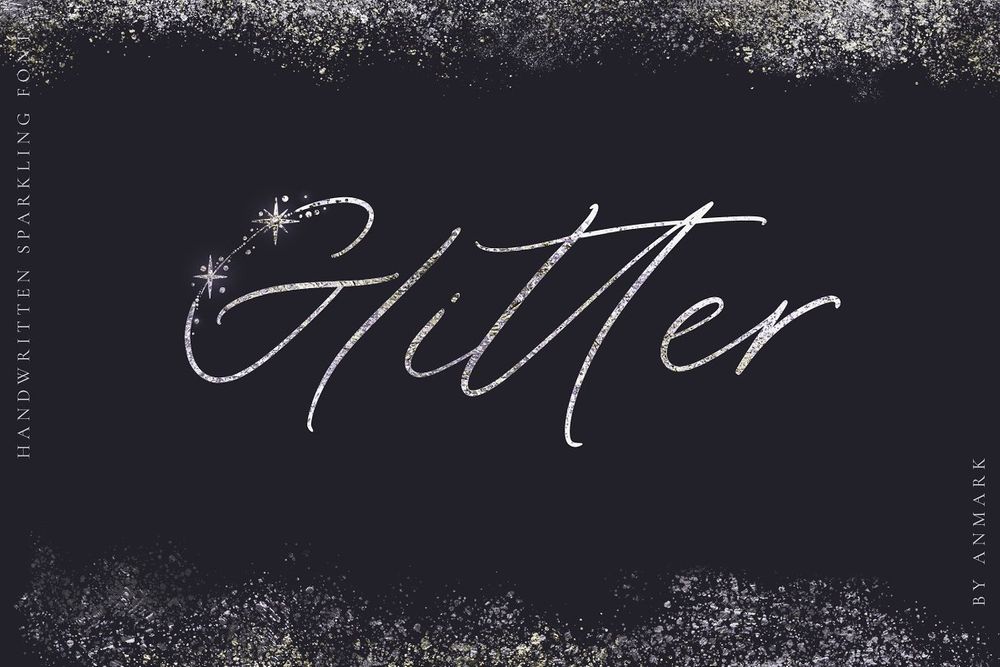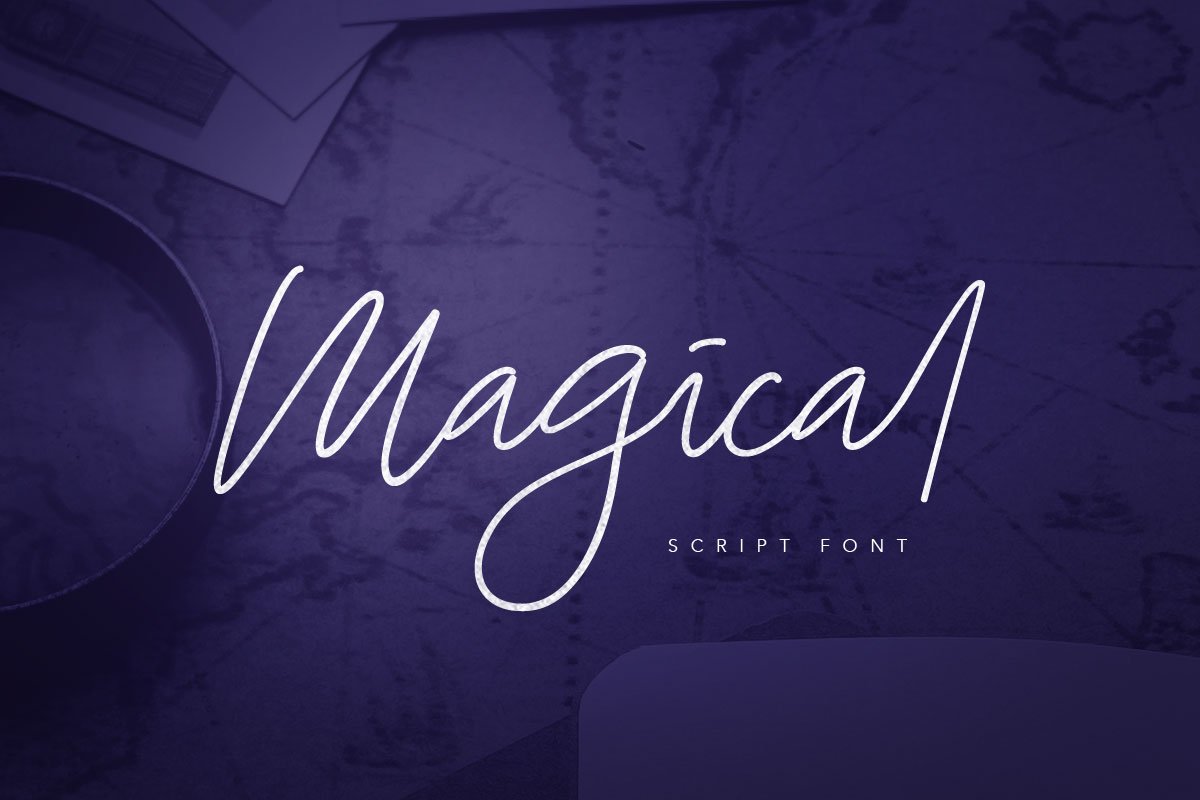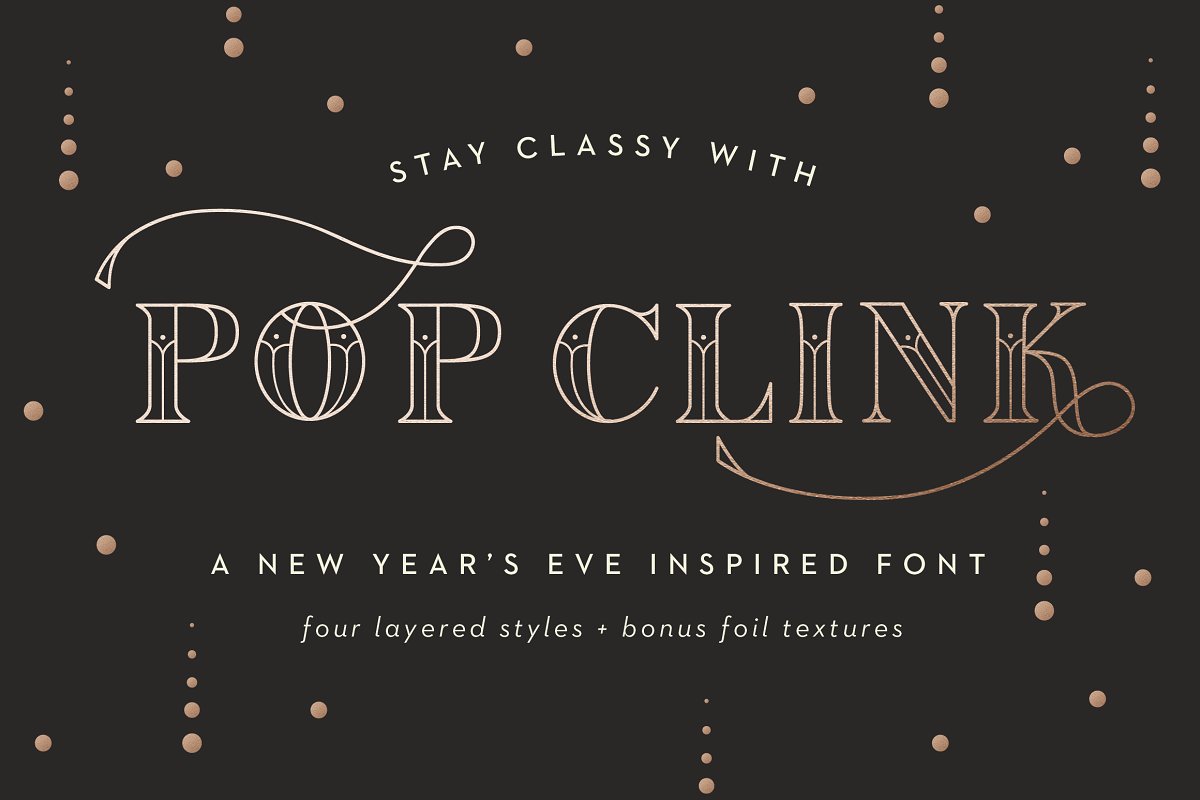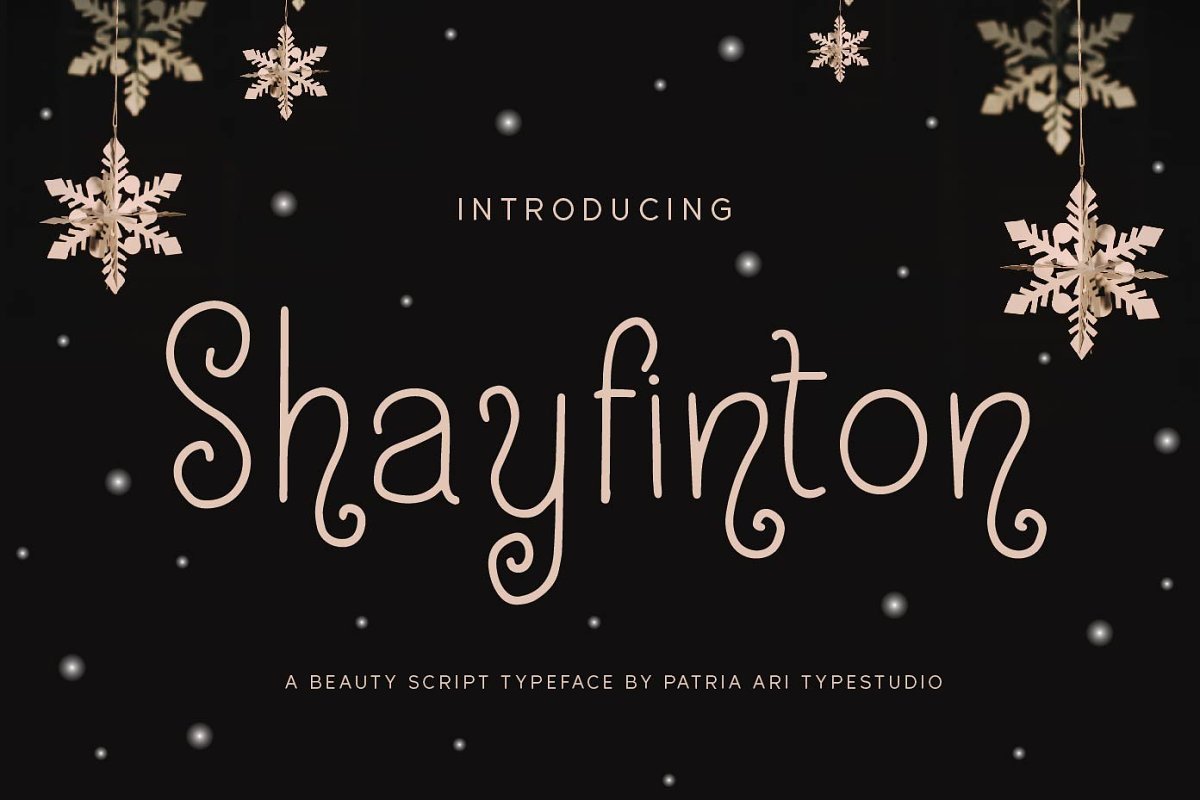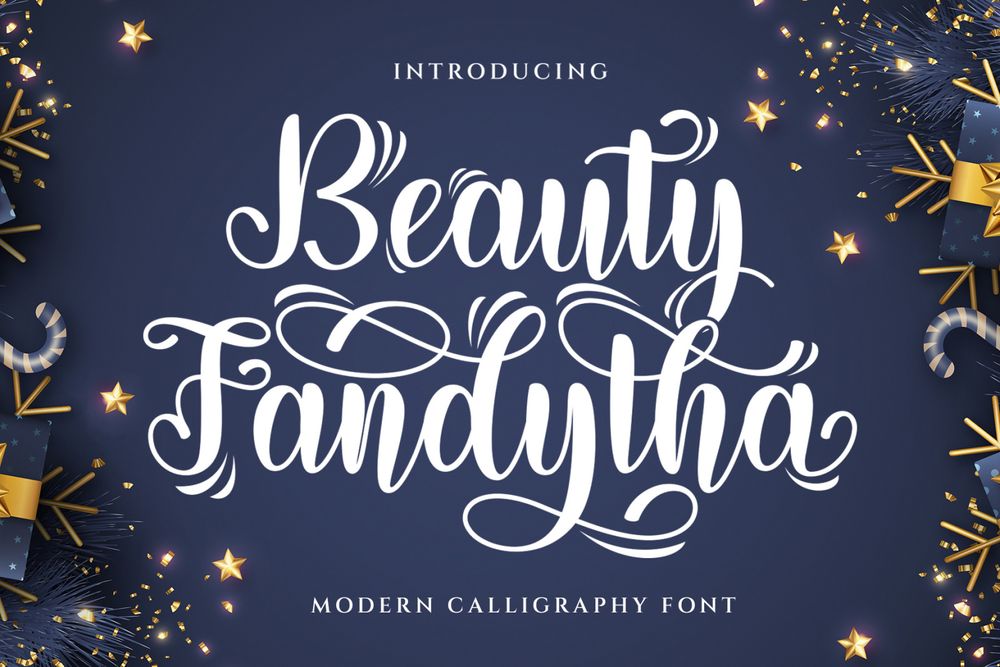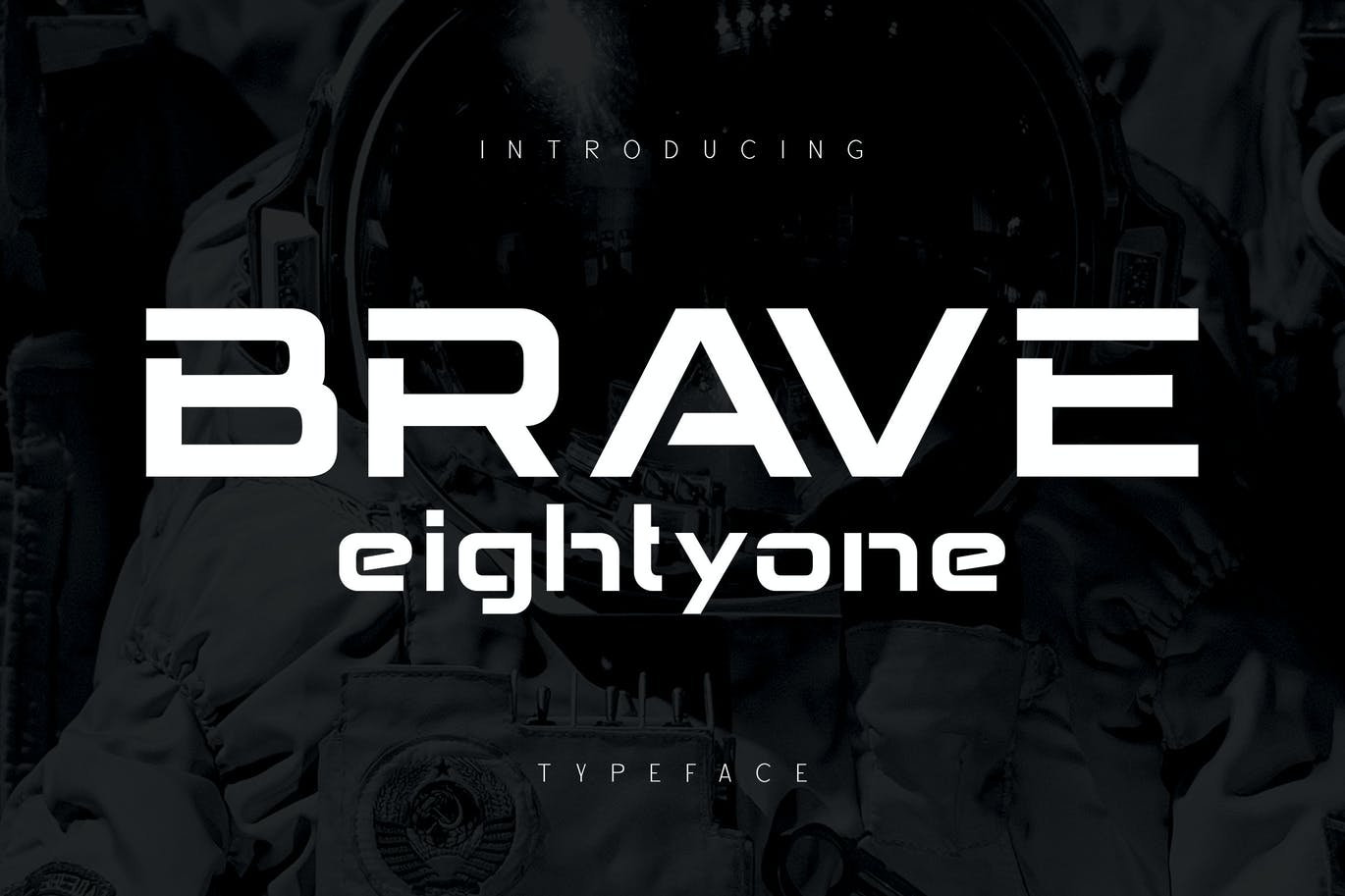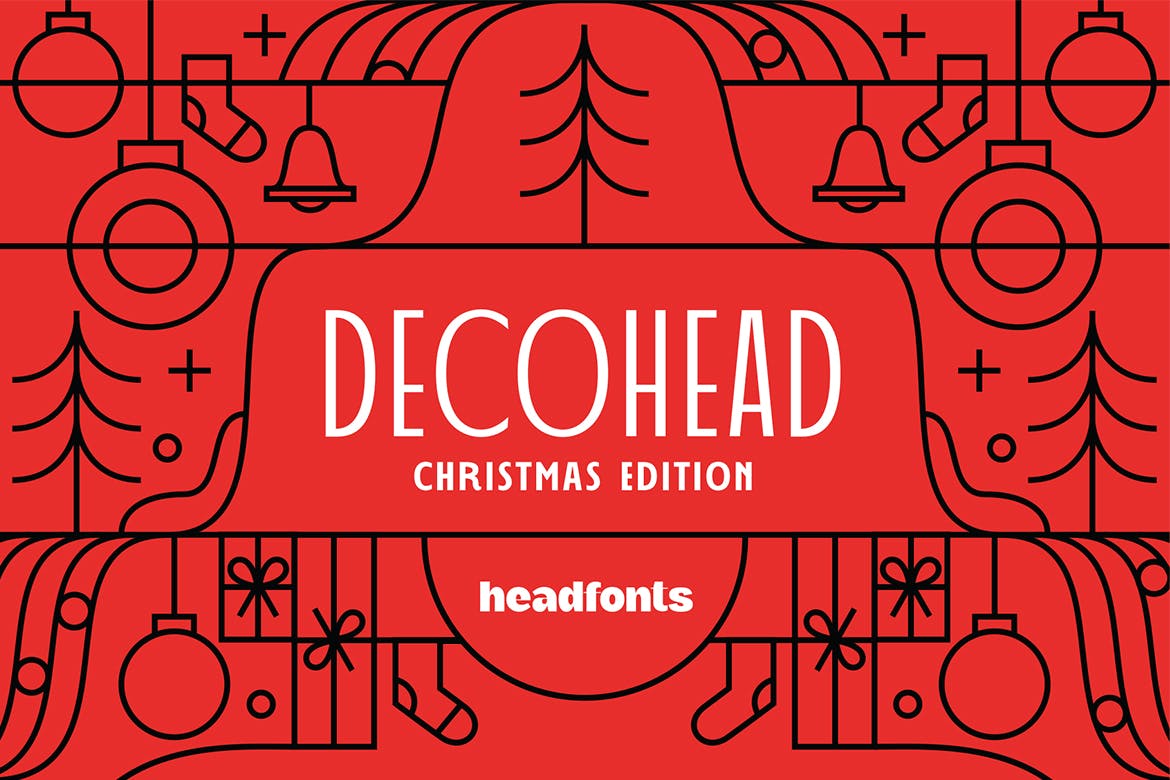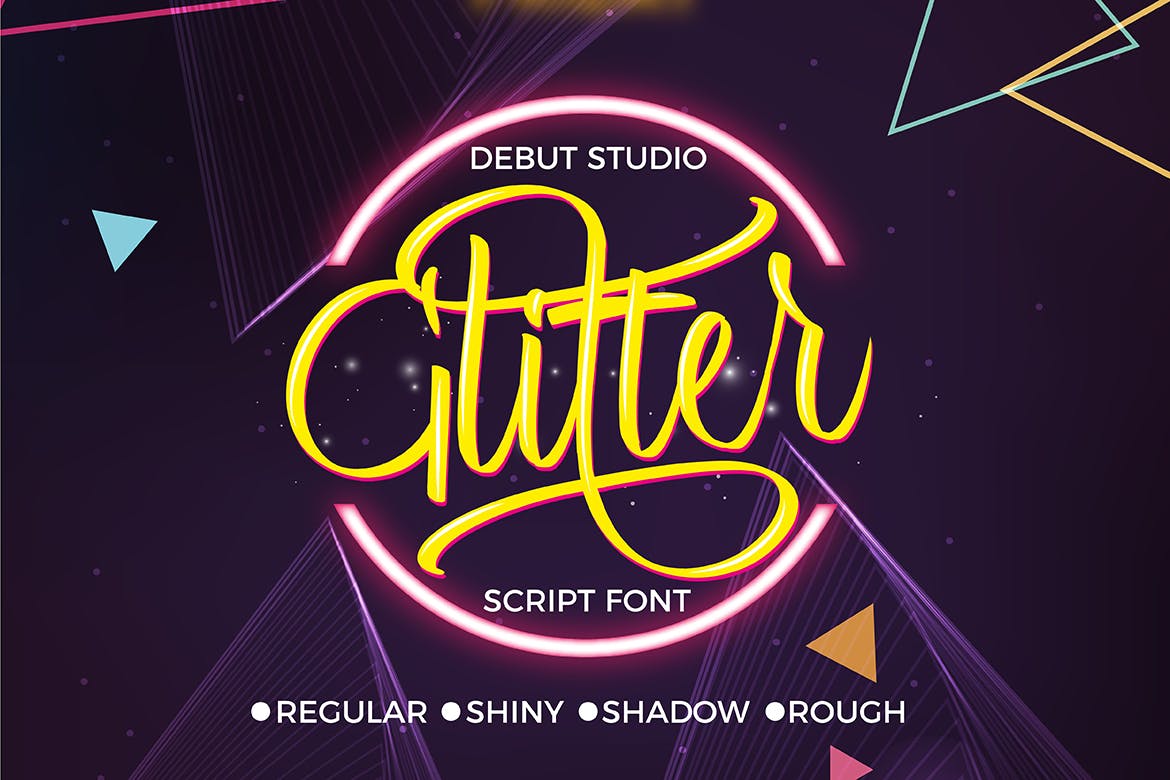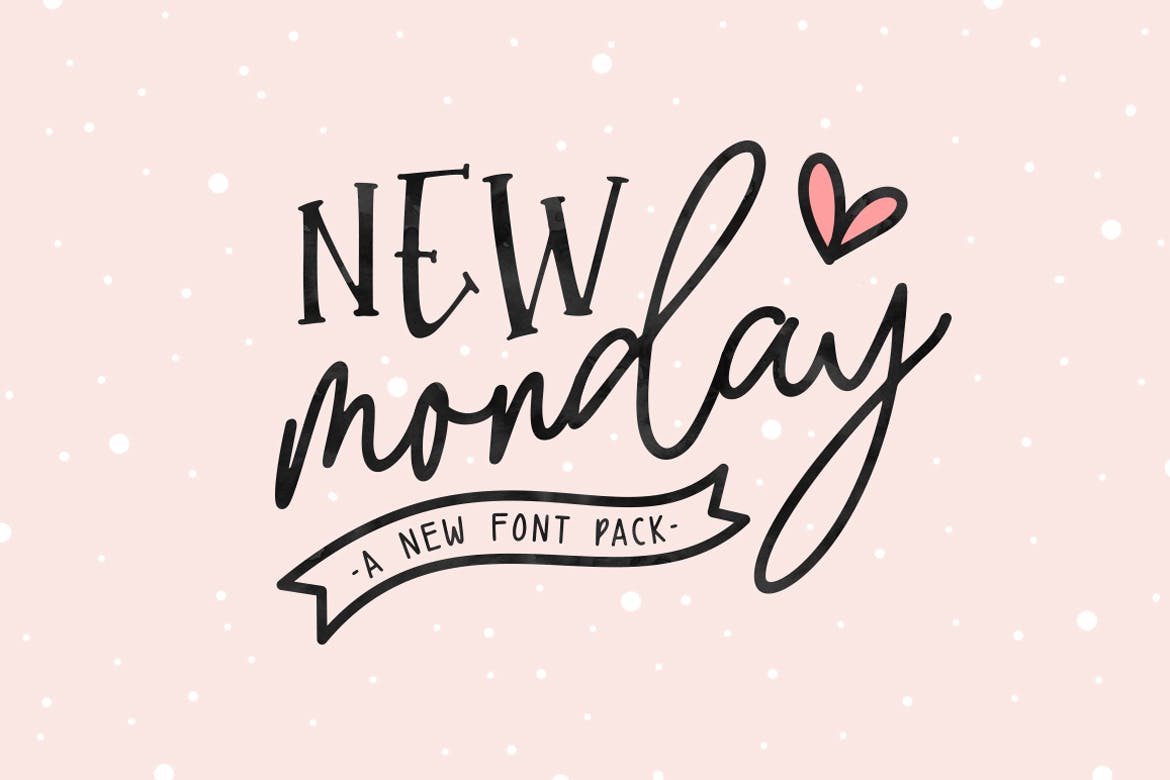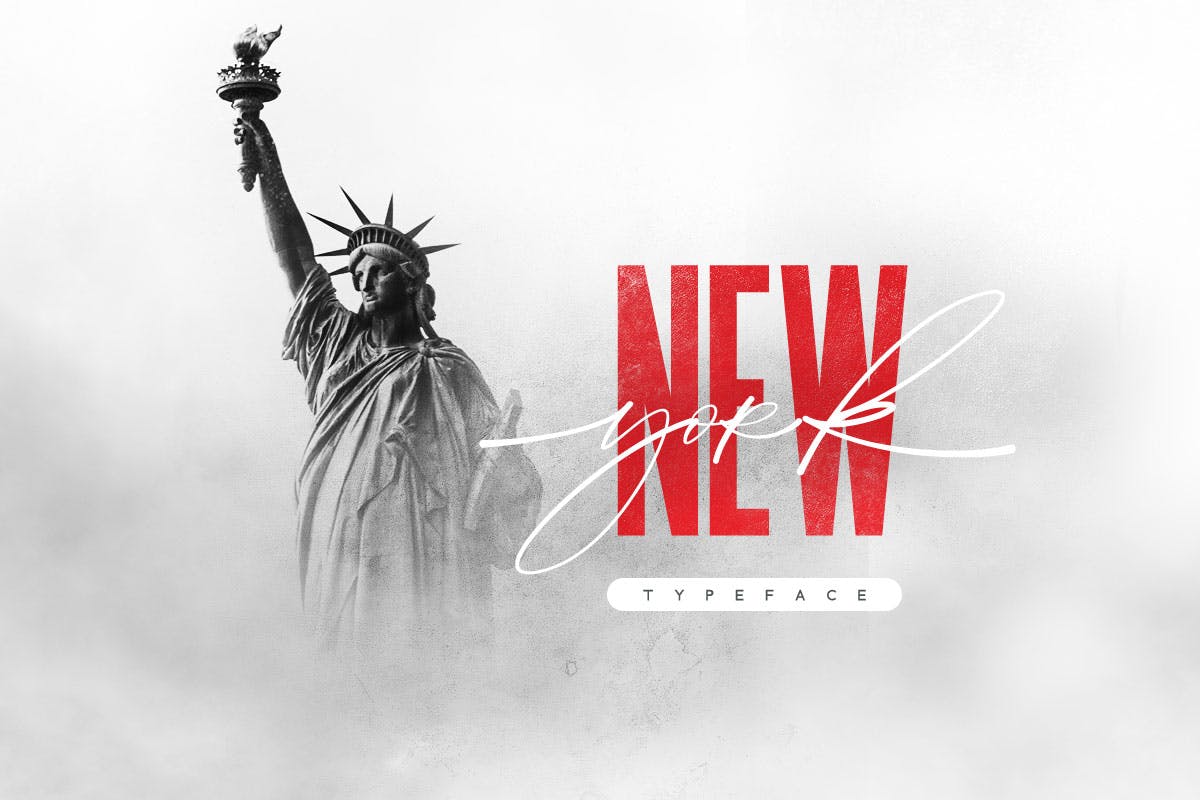
30+ Glowing New Year Fonts to Create a Festive Mood
The celebrations is a part of our life. We waiting the time when we can to celebrate until dawn with our best friends.
Christmas is passed and the next huge event to meet a New Year. So, for this big ritual time we have collected in this awesome post a New Year fonts, and they can help to create a festive mood for your designs.
Happy New Year! Wishing you all a happy and prosperous time spent with your family and friends. Enjoy every font and feel the magic, then your design will be done without any doubts.
Free You’re Invited Font
A nice and stylish old timer font by Mario Arturo foryour special event. You can use it for gift cards, flyers or invitations.
A spectacular festive font for celebration designs. Perfect for gift cards, flyers, postcards, headings, logos or invitations.
Amazing script font for designs that needs attention. Perfect for gift cards, flyers, postcards, headings, logos or invitations.
A perfect font for party related designs. Great for gift cards, flyers, postcards, headings, logos or invitations. Free for personal use.
This great font is perfect for your design to add a festive feeling. Perfect for invitations, gift cards, logos a special for Christmas and New Year events.
An elegant Christmas font, but it is perfect for all celebration designs. Great for posters, headers, feminine logos to wedding invitations but it can also be used for small articles and occasional texts.
It is a handwritten font for nice festive designs. New Monday perfect for logos, printed quotes, invitations, cards, product packaging and another project design.
This font is inspired from handwriting itself, it is suitable for design-themed purposes such as festivals, graduation, weddings, new year and others.
Every single letters have been carefully crafted to make your text look natural hand writing. With modern script style it will be perfect for many different projects like photography, watermark, quotes, blog header, poster, wedding, branding, logo, fashion, apparel, letter, invitation, stationery and etc.
It is inspired by futuristic design concepts and space-like design concepts. This font is good for future, modern, space, sports, bold and speed themed designs.
It is layered family that shines in foil and is perfect ringing in the New Year. Pop Clink is suitable for holiday cards, wedding invitations, branding, stationery, blog design and etc.
A new display vintage font with tons of cool characters, symbols, and OpenType features. Aprille Typeface is perfect for quotes, logos, apparel, advertising, wedding invitations, packaging design, party design and etc.
A new display vintage font with tons of cool characters, symbols, and OpenType features. Blackout Typeface is perfect for quotes, logos, apparel, advertising, wedding invitations, packaging design, party design and etc.
A hand-painted typeface designed to help you create that look of truly hand-drawn and also shiny touch to any of your typographic projects. Easily apply foil layer styles to font, vector elements, wedding invitations, prints, blog banners, greeting cards, patterns, brushes and etc.
Info / Download SourceBiolatesha Calligraphy Font
It is a wonderful hand-brushed and monoline calligraphy script font. Perfect for any design needs, modern invitation design, branding, stationery design, blog design, modern advertising design, invitation and etc.
Info / Download SourceLightsaber Font + Neon Animation
Lightsaber bears a new approach on handlettering style with equally slanted monolines. It is perfect for any festive design project, invitations, gift cards, new year design and etc.
Info / Download SourceGlitter Festive Font
It is an elegant, decorative, handwritten font. Suitable for wedding invitation, branding, packaging, magazines, makeup business, social media, quotes, restaurant menu, greeting cards, flyers and etc.
Info / Download SourceBright Moments Font
A new handmade script typeface with lots of cool characters, symbols, and OpenType features. Bright Moments is perfect for quotes, logos, apparel, advertising, wedding invitations and packaging design.
Info / Download SourceMagical Script Font
Magical is modern script font, every single letters have been carefully crafted to make your text looks beautiful. Perfect for quotes, blog header, poster, wedding, branding, logo, fashion, apparel, letter, invitation, stationery and etc.
Info / Download SourceShayfinton Font
Shayfinton is a cute and playful curly display typeface which is ready to support your projects. Perfect for branding projects, invitation, greeting cards, book cover, logo, social media posts, advertisements, product packaging and etc.
It obsessively loves to be a part of events and festivals, it’s born that way. Perfect for brand/store names, events, party invitations, festival – everything that sparks up the joy around!